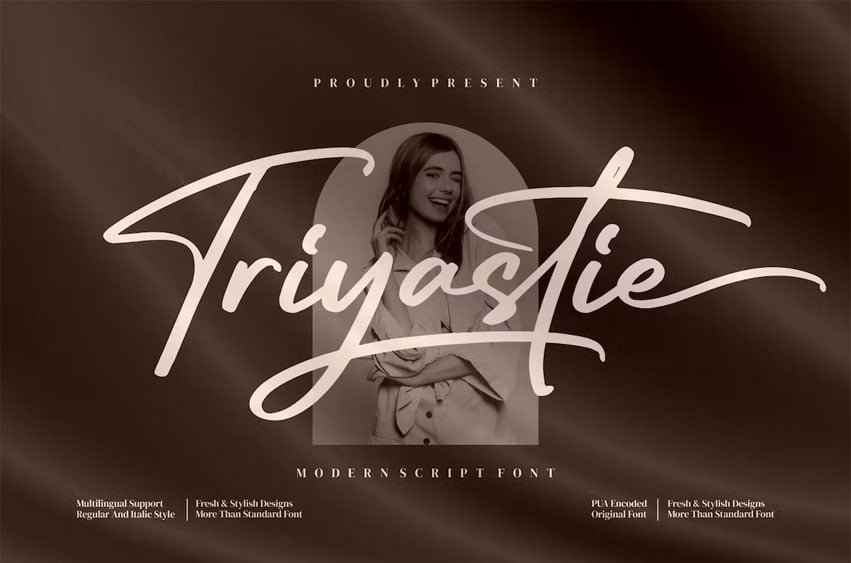
Triyastie Font Modern Script Font, from Integritype Studio, is a premium Script Font, perfect for any project that requires a distinctive, premium feel.
Ligature, Alternate & Multilingu